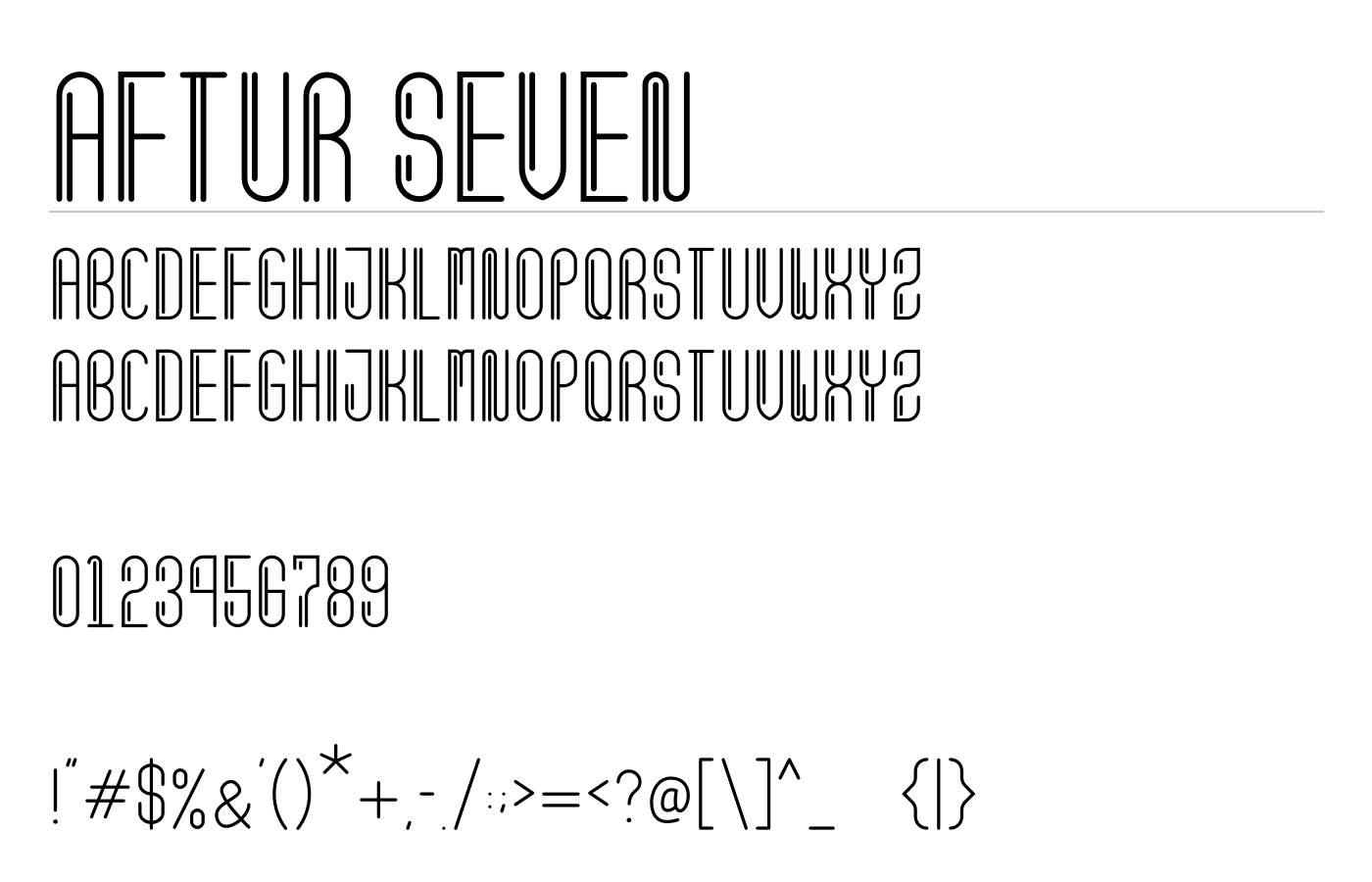
Aftur Seven is a sleek, narrow sans serif font with a modern, minimalist feel. Its tall, condensed letterforms and consistent stroke width give it a clean, geometric appearance that works well for contemporary branding, headlines, and stylish editorial design. This font’s unique, slightly futuristic character shapes make it ideal for projects aiming to communicate innovation and sophistication.
Aftur Seven Font